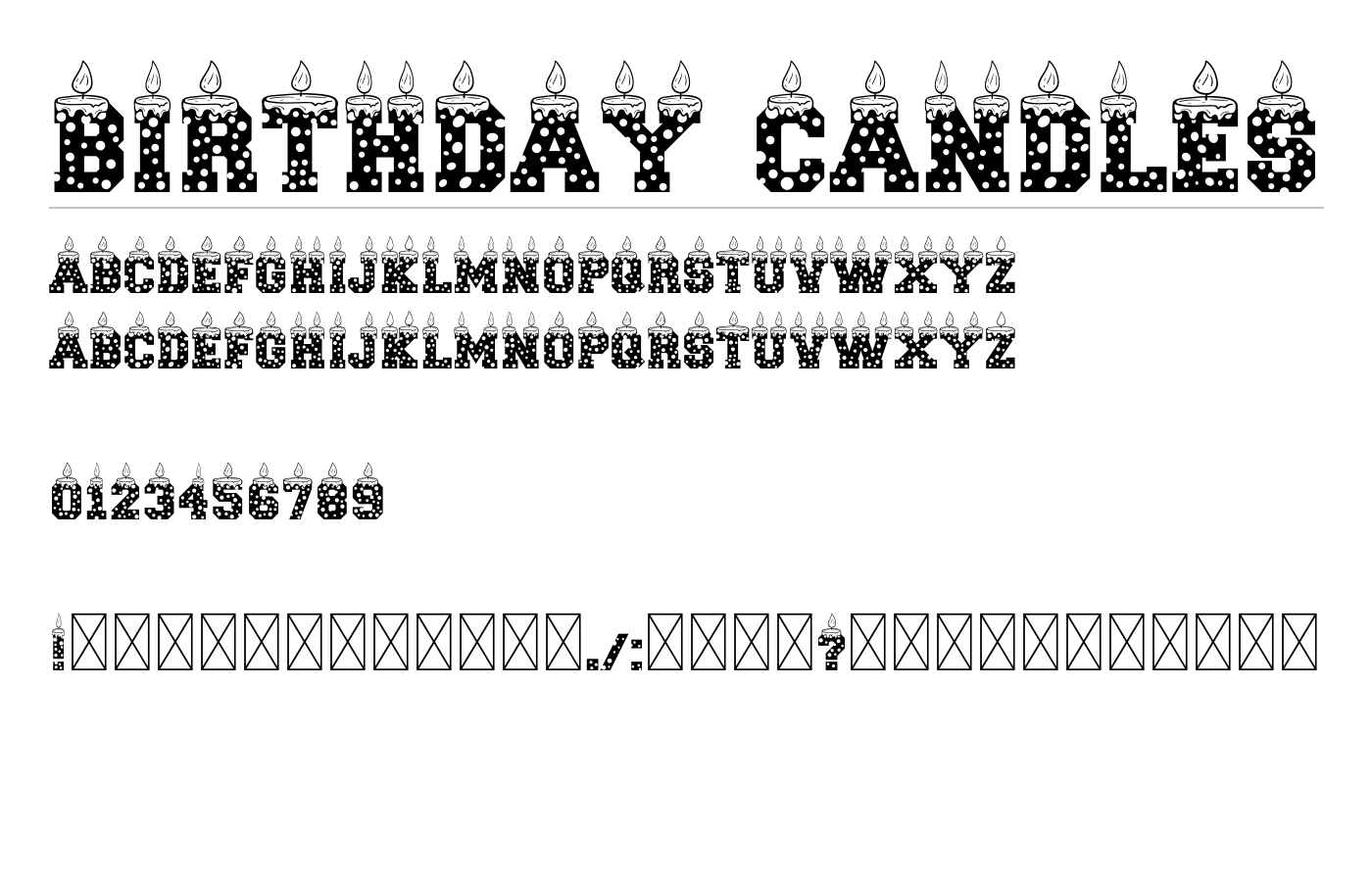
Birthday Candles Font is a playful and bold display typeface featuring blocky, uppercase letters designed to look like decorated birthday candles with dripping wax and small flames on top. Its heavy weight and dotted texture give it a festive and whimsical vibe, perfect for party invitations, children's events, and celebratory branding. This font’s unique candle-themed design makes it great for adding a fun, cheerful touch to headlines and decorative text.
Birthday Candles Font
About Birthday Candles Font
| Font family | Birthday Candles Font |
| Designer | El Mehdi Chouyoukh |